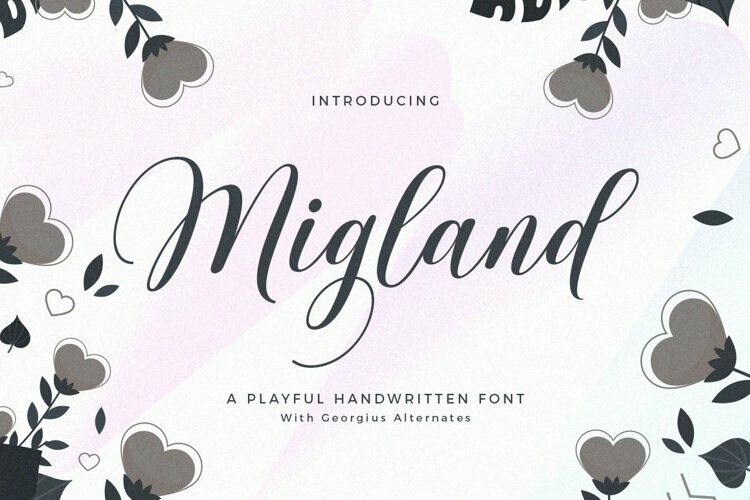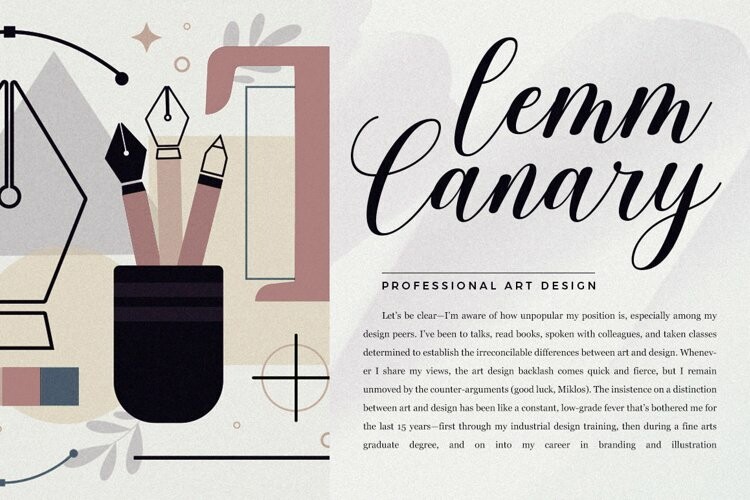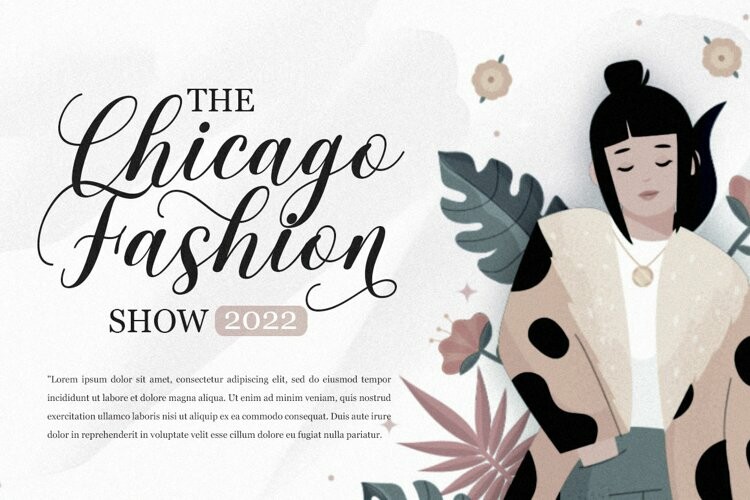
Migland Font
Migland FontMigland script is this amazing typeface handmade script font we created in freestyle for those of you who do work and crafts.It’s perfect for any type of work you’re working various purposes such as logos, wedding invitations, headings, t-shirts, letterheads, signage, labels, news, posters, badges etc.